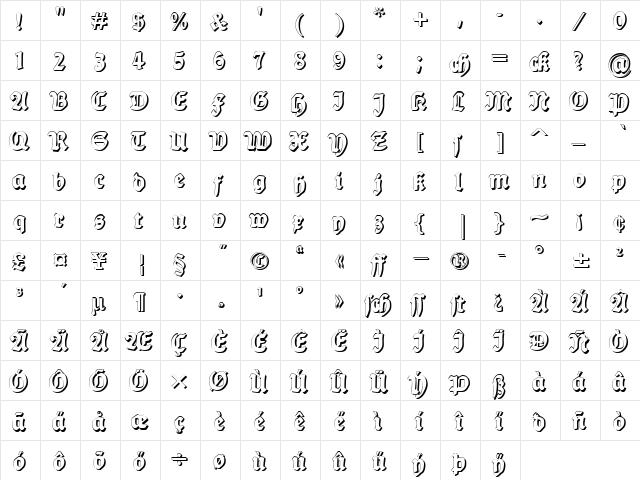
DS Ballade Shadow Regular
| Foundry | Typographer Mediengestaltung |
| Designer | Paul Renner (1937) |
Design Context for DS Ballade Shadow Typeface
DS Ballade Shadow is built around its visual character rather than neutral utility — its distinctive forms are designed to make an impression at display sizes.